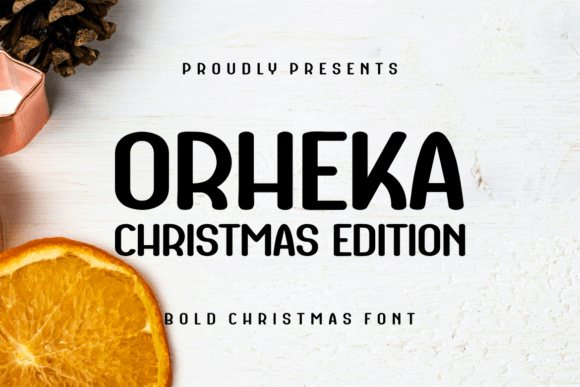
**Orheka Christmas: The Font That'll Make Your Christmas Sparkle**
Prepare to deck the halls with the most captivating Christmas font ever: Orheka Christmas! This bold and beautiful display font is specially designed to bring the Christmas spirit to life with every letter.
Whether you're creating festive food labels, warm greeting cards, or enchanting gift decorations, Orheka Christmas will transform your words into a winter wonderland. Its charming curves and playful strokes will spread holiday cheer throughout your designs, leaving a lasting impression on all who behold them.
Indulge in the magic of Orheka Christmas and let the spirit of the season flow through your creative projects. From the first glance to the final flourish, this font will ignite the joy of Christmas within you and inspire you to create something truly extraordinary.